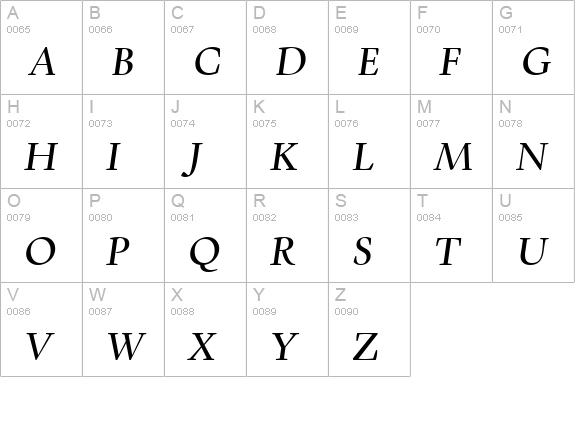
Kennedy Md Medium Italic GD is a balanced, medium-weight, italic variant in the Kennedy typeface family \xE2\x80\x94 well suited to sub-headlines, navigation, and balanced editorial work.
Introducing the elegant and sophisticated Kennedy Md Medium Italic GD font. This font exudes a sense of professionalism and refinement, making it perfect for a wide range of design projects. Its medium weight adds just the right amount of boldness, while the italic style adds a touch of elegance and flair. With its clean lines and balanced letterforms, Kennedy Md Medium Italic GD font is both modern and timeless. It is designed to be highly legible, ensuring that your message is conveyed with clarity and style. Whether used in a logo, website, or printed materials, this font will make a lasting impression. What sets Kennedy Md Medium Italic GD font apart is that it is freely available to download at FontsMarket.com. This means that you can easily access this beautiful font without any restrictions. Whether you are a professional designer or someone looking to add a touch of sophistication to your personal projects, this font is an excellent choice. So why wait? Download Kennedy Md Medium Italic GD font today and elevate your designs to new heights. With its sleek and stylish look, this font is sure to captivate your audience and leave a lasting impression.